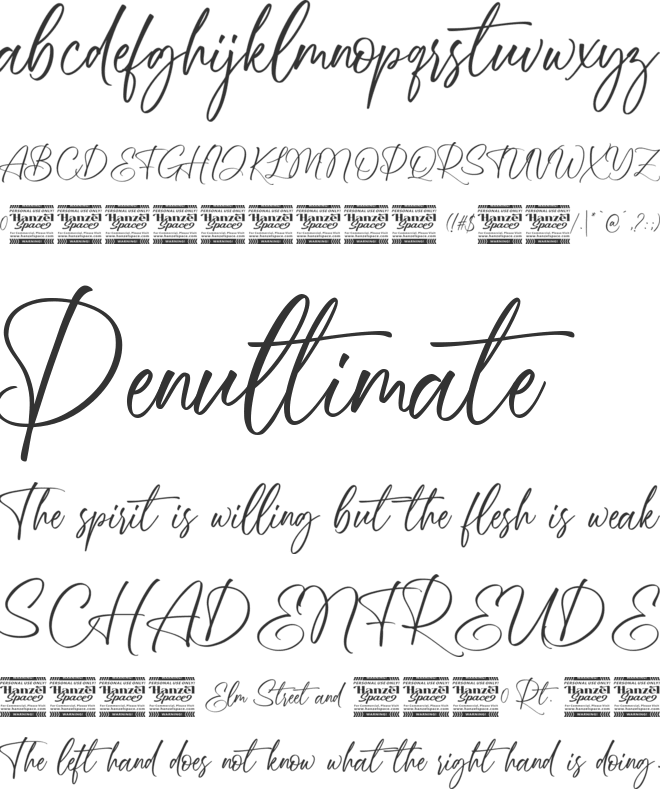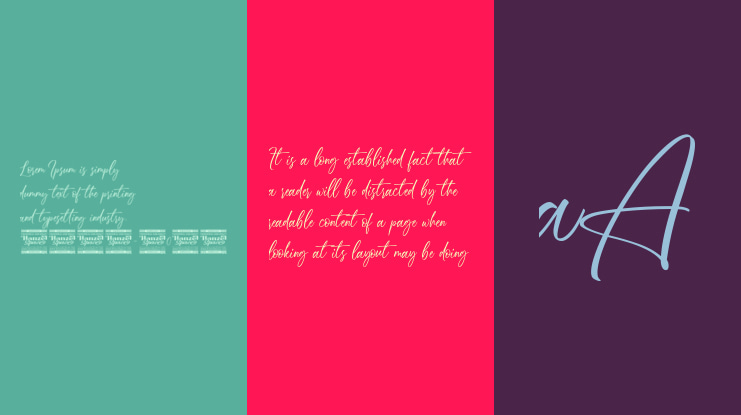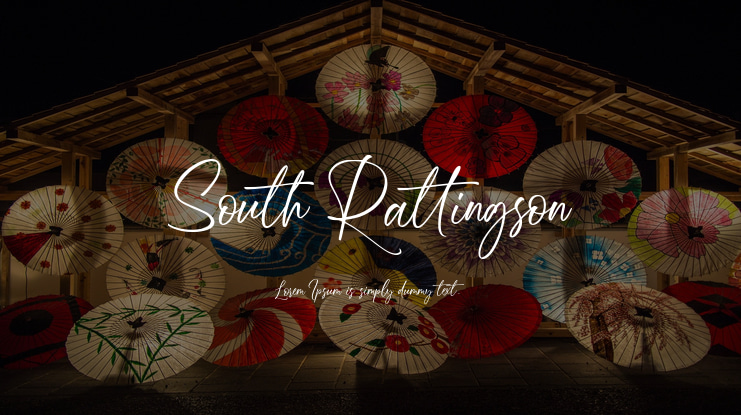
South Rattingson – Handwritten Font
Introducing the latest product \”South Rattingson\” this font is made by handwriting to make it look professional and looks natural as well as curves that have characters in each letter. \”South Rattingson\” is perfect for branding projects, homeware designs, product packaging – or simply as a stylish text overlay to any background image.
The script includes a set of uppercase characters, numerals, symbols, two lowercase letter sets
Features:
– Full Set of standard alphabet and punctuation
– Extra set of ending swashed lowercase
– Handwritten ligatures
– Multilingual Characters (ÁÂÄÀÅÃÆÇÐÉÊËÈÍÎÏÌÑÓÔÖÒØÕÚÛÜÙẂŴẄẀÝŶŸỲ áâäàåãæçðéêëèíîïìñóôöòøõœúûüùẃŵẅẁýŷÿỳ€£¥)